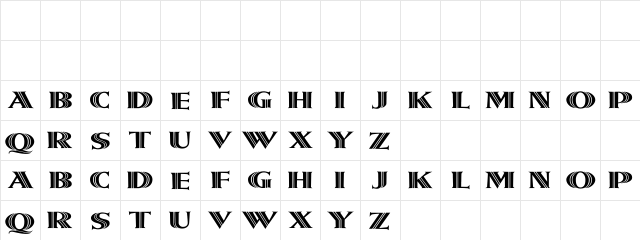
Metroliner Wd Regular Free Font
Metroliner Wd Regular
Design Context for Metroliner Wd
Metroliner Wd is a composed and adaptable typeface that performs quietly and consistently across a wide range of design contexts.